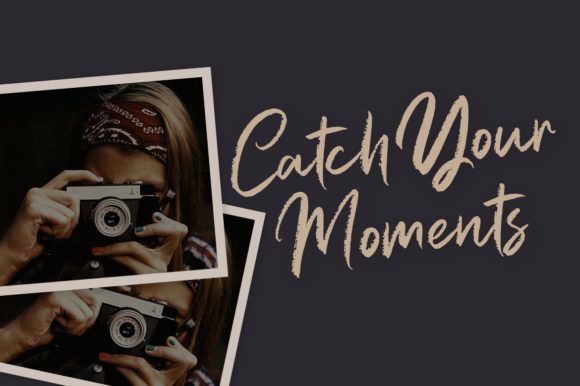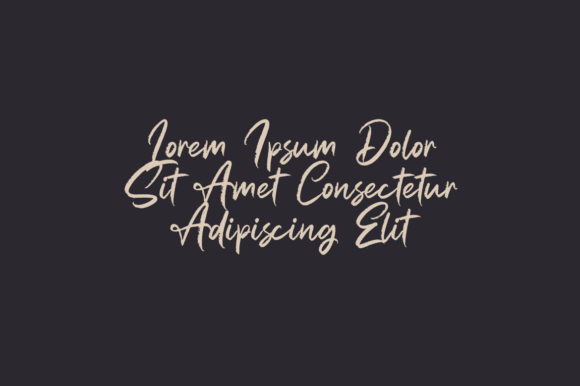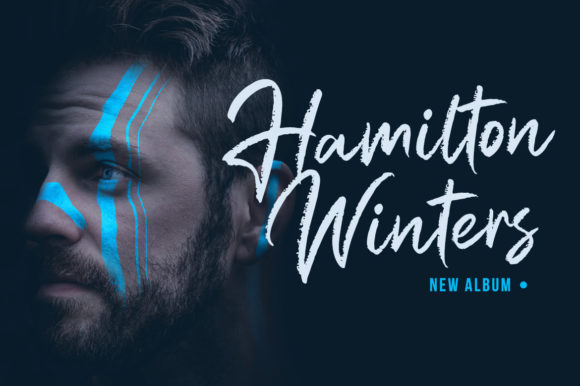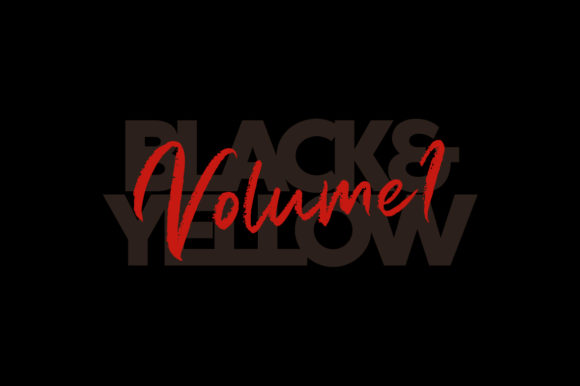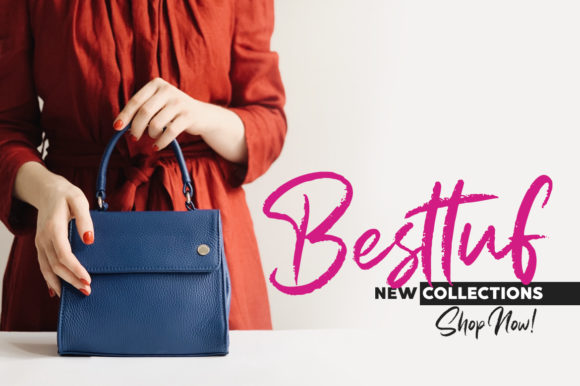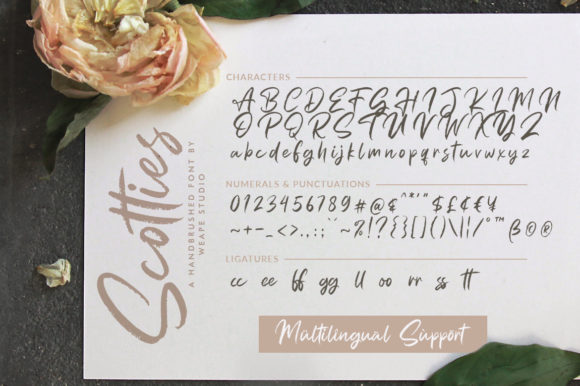
Introduction to Scotties Font
Have you ever stared at a blank canvas, trying to bring a creative project to life, only to feel like your design is missing that special something? I’ve been there too. But what if I told you that a simple yet powerful font could be the game-changer you’ve been searching for?
Enter Scotties Font, a strong and playful handwritten font that radiates authenticity. Its contemporary approach to design makes it a valuable resource for any creative project, from branding to typography. With its high-quality design and transparent background, this font is a must-have for designers looking to elevate their work.
Key Features of Scotties Font
- High-quality, unique design ideal for creative projects
- Transparent background for versatile usage in various design contexts
- Designed with a clean and modern aesthetic, perfect for contemporary designs
Honest Review: Scotties Font
I recently came across the Scotties Font while working on a creative project and I was excited to give it a try. After some exploration, I’m happy to share my honest thoughts on this design resource.
- What works well: ✨ The Scotties Font has a unique, high-quality design that would be perfect for projects that require a playful and whimsical touch. The font is also available for free download, which is always a bonus.
- What works well: ✨ The font is highly customizable, allowing you to adjust the size, color, and even the texture to fit your design needs.
- What works well: ✨ The transparent background of the font makes it easy to overlay on different images and backgrounds.
However, I did encounter a few limitations while working with the Scotties Font:
- ⚠️ The font is not suitable for large blocks of text, as it can become difficult to read. It’s best used for headings, titles, and other short text elements.
- ⚠️ The font is not as versatile as some other fonts, and it may not be suitable for all design projects.
Overall, I’m impressed with the Scotties Font, but I do think it has some limitations. If you’re looking for a unique and playful font for a specific project, the Scotties Font may be a great choice. However, if you need a font that can handle large blocks of text or is highly versatile, you may want to consider other options.
Tips for Getting the Most Out of Scotties Font
Experiment with different font sizes, colors, and styles to achieve the desired look. You can also combine Scotties Font with other fonts for a unique design.
Common Use Cases for Scotties Font
The Scotties Font is ideal for creative projects, such as infographics, posters, and social media graphics. Its high-quality design and transparent background make it perfect for overlaying on images or videos.